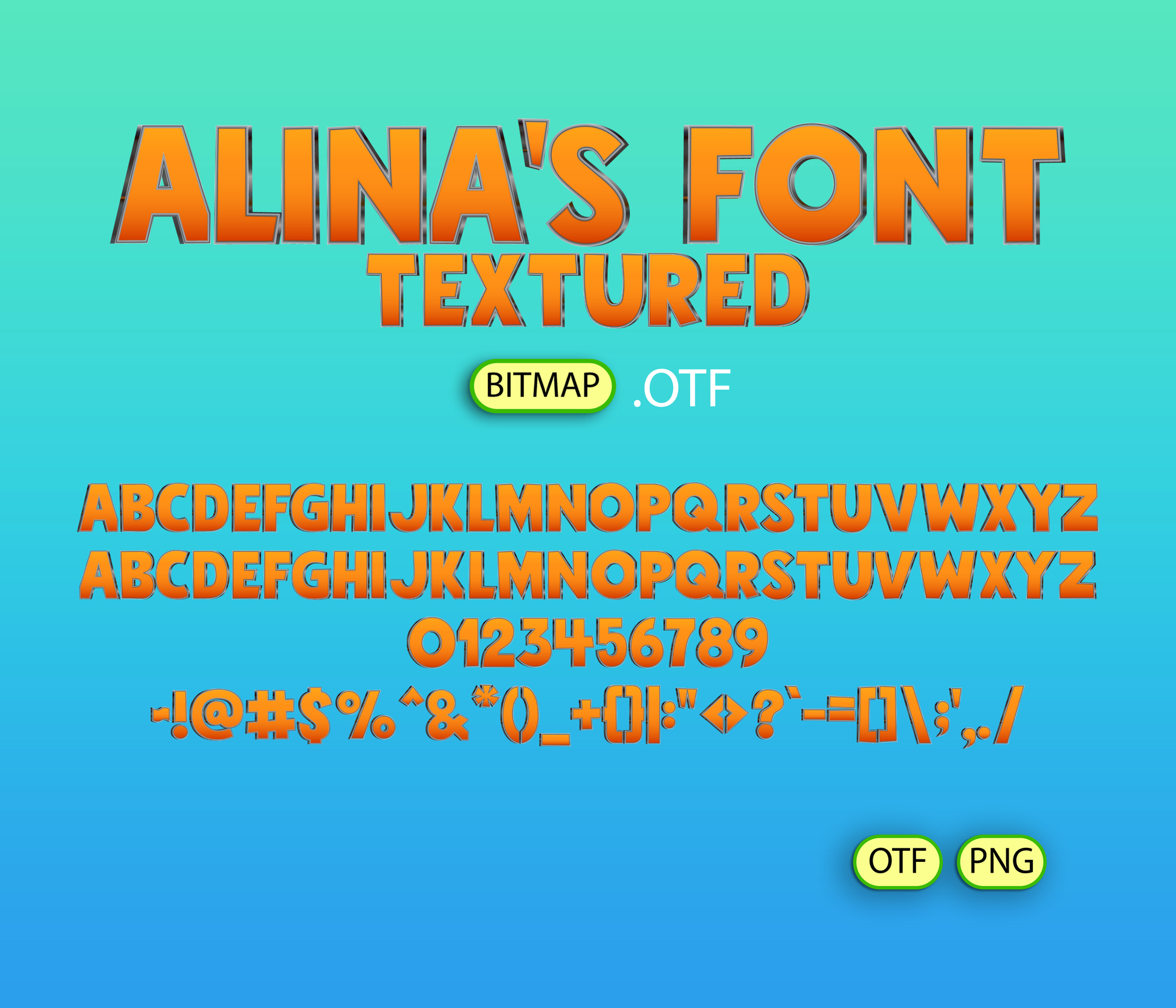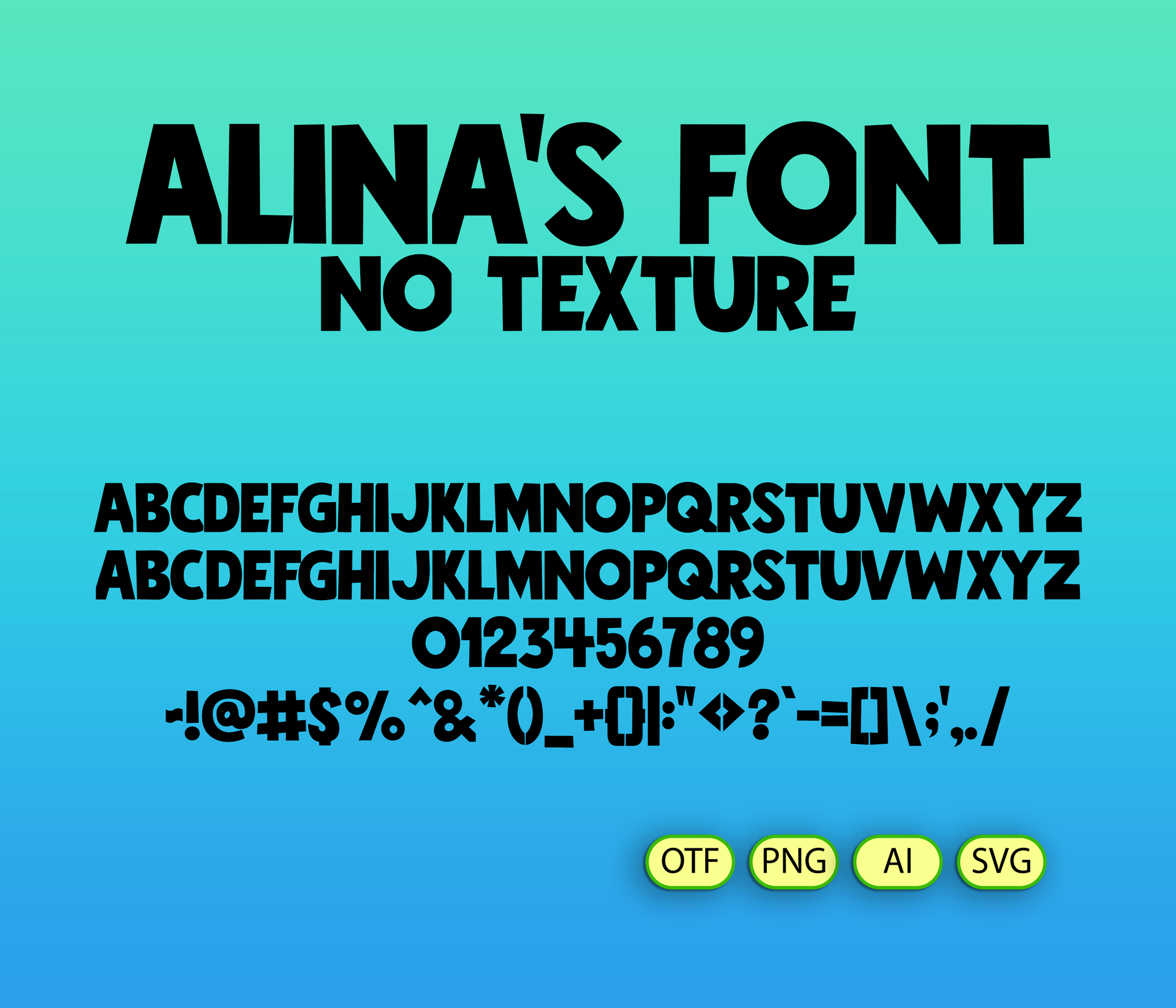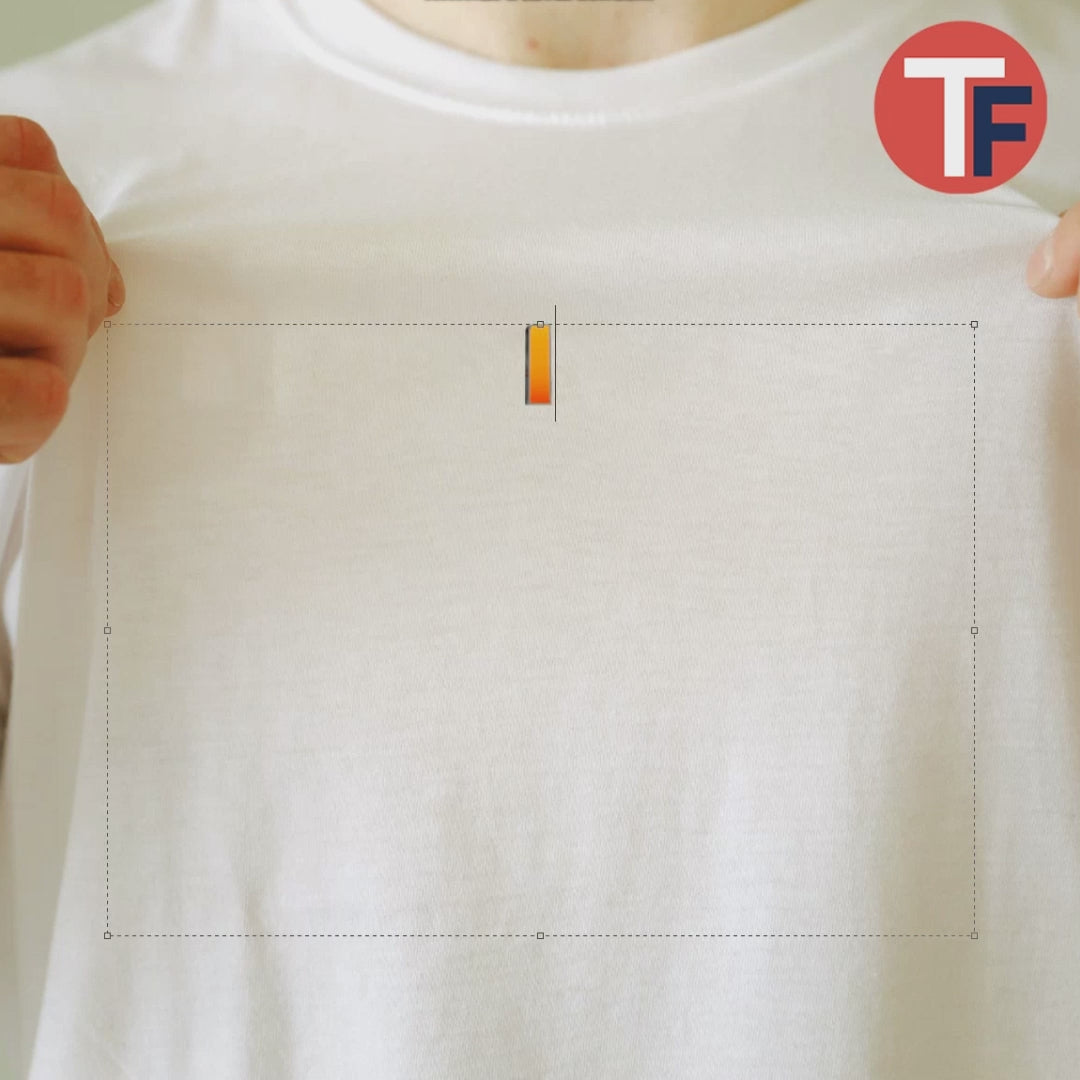
Lasagna Lover 2024 Font Textured
Lasagna Lover Font: The 2024 Cat Adventure Typeface
Dive into the world of everyone's favorite lasagna-loving cat with our Lasagna Lover Font, inspired by the 2024 cat adventure movie. Perfect for fans celebrating the charm, humor, and sass that the iconic cat brings to the big screen, this font captures his playful personality and vibrant world. Whether creating movie-related content, designing merchandise, or adding a touch of humor to your projects, this font channels the spirit of the laziest cat in comic history.
Lasagna Lover Font Features
This typeface embodies the whimsical and slightly cynical nature of the beloved cat, with rounded, bold characters that mimic his robust physique and easy-going life. It hints at comic strip origins with its fun style. Versatile and engaging, it includes an extensive character set perfect for capturing the variety of moods and antics he is known for—from his disdain for Mondays to his love of food and naps.
The Lasagna Lover font is perfect for various creative and promotional projects:
- Movie Posters and Promotional Materials: Eye-catching designs capturing the film's humor and adventure.
- Merchandise Design: Ideal for T-shirts, mugs, stickers, and more, letting fans carry a piece of the cat's world.
- Social Media Campaigns: Engaging content that resonates with fans, from quotes to funny moments.
- Event Invitations: Unique invites for movie screenings, themed parties, or any event channeling the cat's fun-loving spirit.
- Comprehensive Character Set: Extensive array of characters supporting creative projects, from simple designs to elaborate compositions requiring special symbols.
The Lasagna Lover font is more than just a set of characters; it's a celebration of the cat's enduring appeal, blending nostalgia with the excitement of his new adventure. Whether for personal projects, fan communities, or commercial endeavors, this font adds fun and engagement, making every creation a vibrant tribute to the world's most beloved orange cat. Embrace his humor, laziness, and love of lasagna, and let your designs reflect the joy and laughter that the 2024 cat movie promises to deliver.